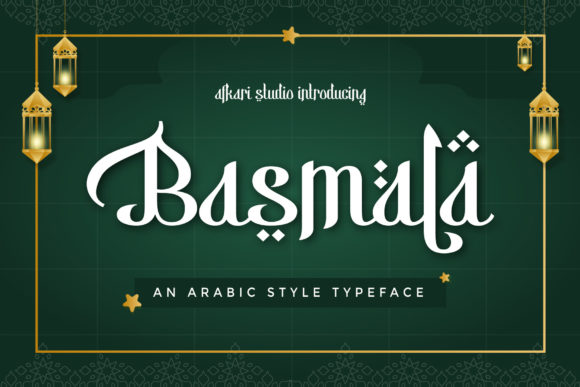
Basmala Font: The Perfect Arabic-Styled Display Typeface for Islamic Designs
Are you looking for a unique and elegant font to give your designs an Islamic touch? Look no further than the Basmala Font, a stunning Arabic-styled display typeface perfect for any graphic design related to the Islamic style. In this article, we’ll explore the features and benefits of the Basmala Font and how it can elevate your designs to the next level.
What is Basmala Font?
Basmala Font is a beautifully crafted Arabic-styled display typeface designed specifically for Islamic-themed designs. This font is perfect for creating stunning visuals that evoke the spirit of Ramadan and other Islamic celebrations. The Basmala Font is made with Latin characters, making it easily readable internationally, even for those who can’t read Arabic characters.
Features of Basmala Font
Unique Arabic Style
The Basmala Font boasts a distinctive Arabic style that adds an elegant touch to any design. Its intricate curves and lines are reminiscent of traditional Arabic calligraphy, making it perfect for Islamic-themed designs.
Readability
Despite its complex Arabic design, the Basmala Font is surprisingly readable, even in smaller sizes. This makes it ideal for use in a variety of applications, from product packaging to book covers.
Versatility
The Basmala Font is incredibly versatile and can be used in a wide range of design applications, including:
- Branding
- Product packaging
- Quotes
- Flyers
- Posters
- Logotypes
- Apparel (T-shirts, hoodies, etc.)
- Book covers
- Movie titles
- Advertising
Benefits of Using Basmala Font
Evoke an Islamic Feel
The Basmala Font is designed to evoke the spirit of Islam and Ramadan, making it perfect for designers looking to create authentic Islamic-themed designs. With this font, you can add an Arabic touch to your designs and connect with your audience on a deeper level.
Stand Out from the Crowd
In a world where designs are constantly competing for attention, the Basmala Font offers a unique and distinctive style that sets your designs apart from the rest. Its elegant and intricate design ensures that your work will stand out and leave a lasting impression.
Easy to Use
The Basmala Font is incredibly easy to use, even for designers who are new to Arabic typography. Its Latin character set makes it easy to read and work with, while its versatility ensures that it can be used in a wide range of design applications.
How to Use Basmala Font
Using the Basmala Font is easy and straightforward. Here are a few tips to get you started:
Choose the Right Size
The Basmala Font is designed to be used in a variety of sizes, from large display headings to smaller body text. Experiment with different sizes to find the one that works best for your design.
Pair with Other Fonts
The Basmala Font pairs well with a variety of other fonts, including sans-serif and serif fonts. Experiment with different pairings to find the one that works best for your design.
Experiment with Colors
The Basmala Font looks stunning in a variety of colors, from traditional Islamic colors like gold and green to more modern colors like blue and red. Experiment with different colors to find the one that works best for your design.
In conclusion, the Basmala Font is a stunning Arabic-styled display typeface perfect for any graphic design related to the Islamic style. Its unique design, readability, and versatility make it an excellent choice for designers looking to create authentic Islamic-themed designs. Whether you’re designing for Ramadan, Eid, or other Islamic celebrations, the Basmala Font is sure to elevate your designs to the next level.